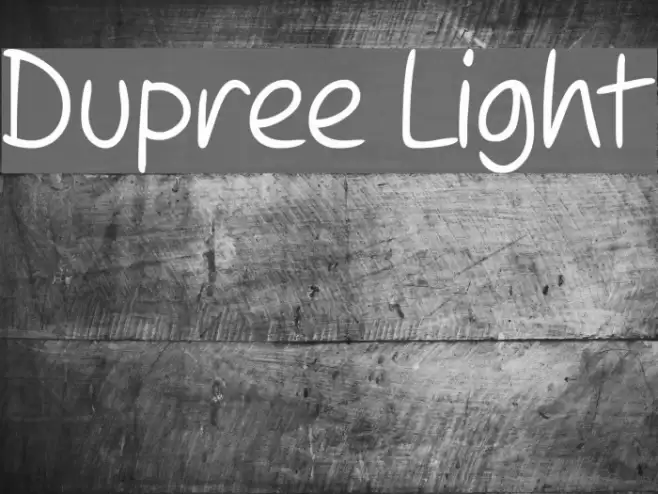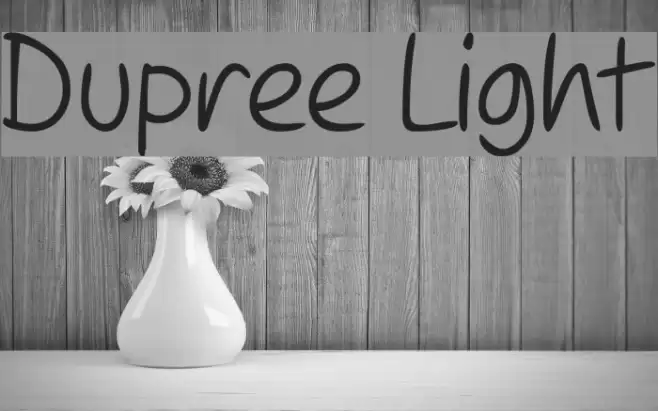
Dupree Light Font
Dupree Light Description
This font features a playful and casual handwritten style, characterized by its smooth, flowing lines and slightly irregular shapes. The uppercase letters are bold and prominent, while the lowercase letters maintain a consistent, friendly appearance. The numerals are rounded and easy to read, complementing the overall informal aesthetic. Special characters are creatively designed, adding to the font's charm. The strokes are consistent in width, providing a uniform look across all characters. This font's approachable and lively nature makes it suitable for a variety of creative applications.
A playful, casual handwritten font with smooth, flowing lines from Uncategorized fonts.
- Proposed Projects: Ideal for greeting cards, children's books, casual branding, and social media graphics.
- Overall Style: Casual
- Use Case: Headlines, Informal text, Creative projects